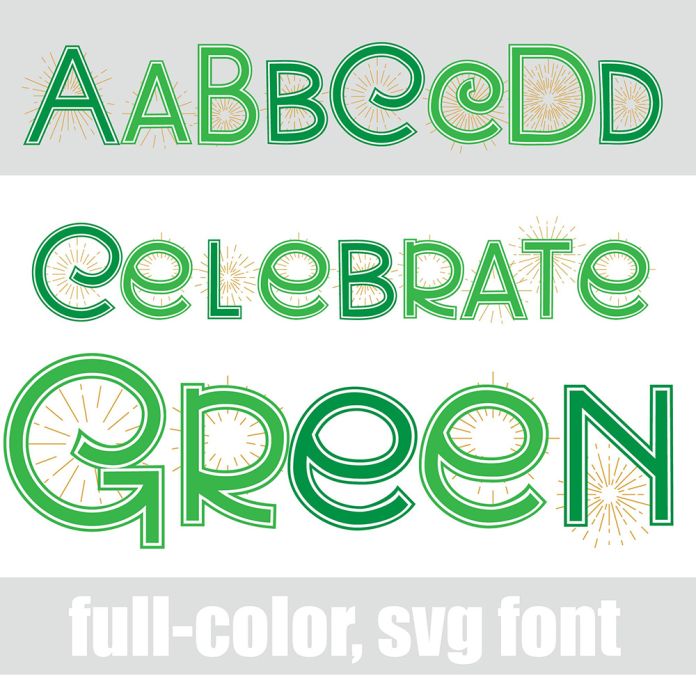
This full-color font features a green, sans serif font with starbursts behind each letter.
There is an alt case with an additional color of each letter. This font works best for titles, displays, posters and more. Please note color fonts will show as black in non compatible programs. This font type is compatible with Silhouette Studio.